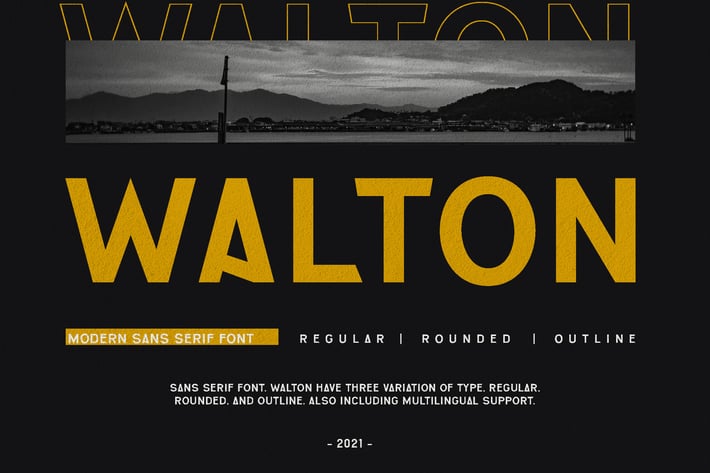
WALTON elegant business Font
WALTON is elegant modern sans serif font family. It can easily be matched to an incredibly large set of projects for your company/ corporate, so add it to your creative ideas and notice how it makes them stand out!